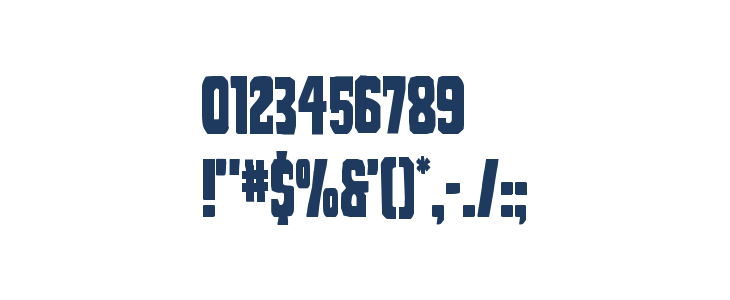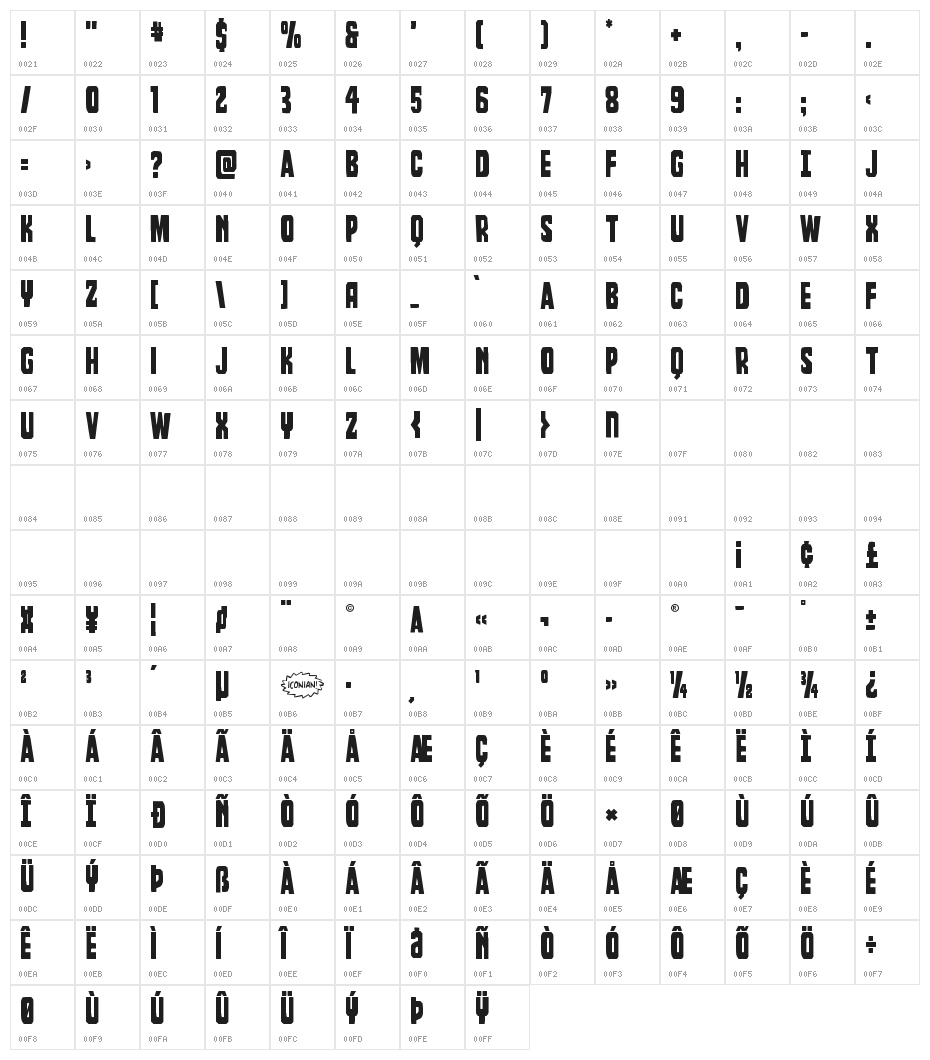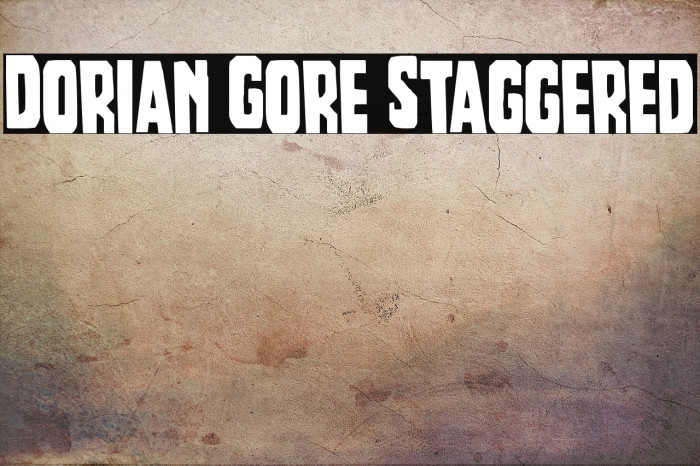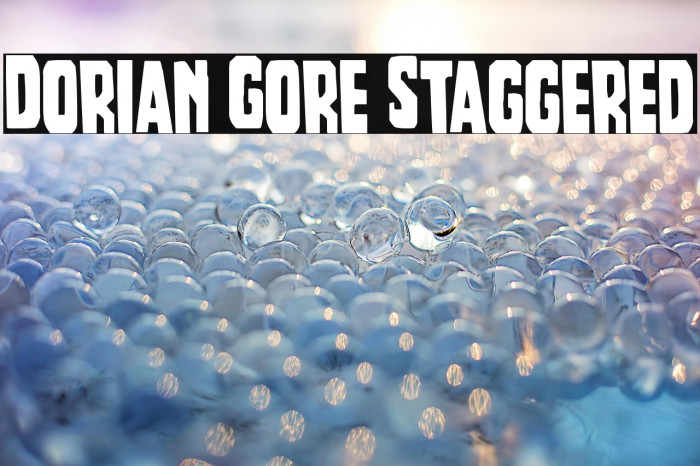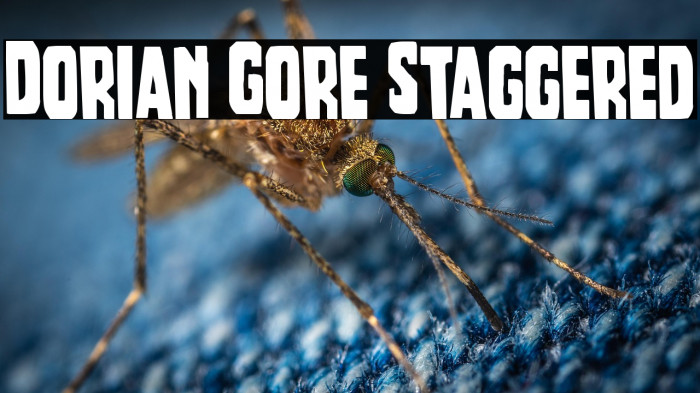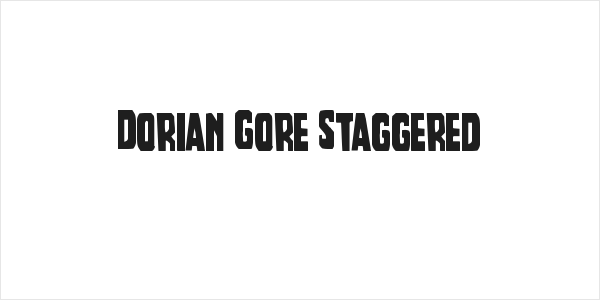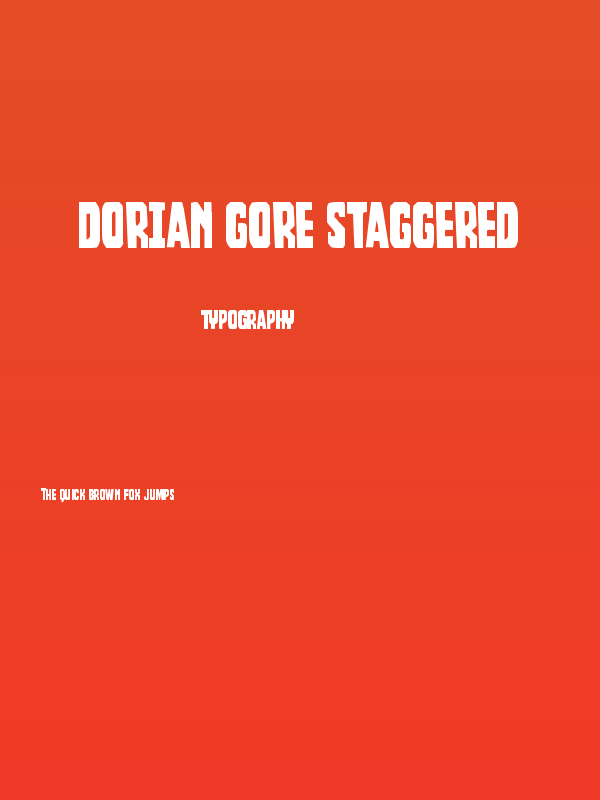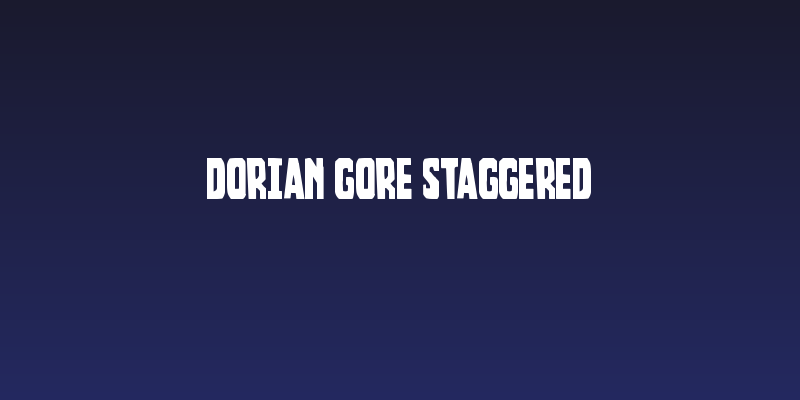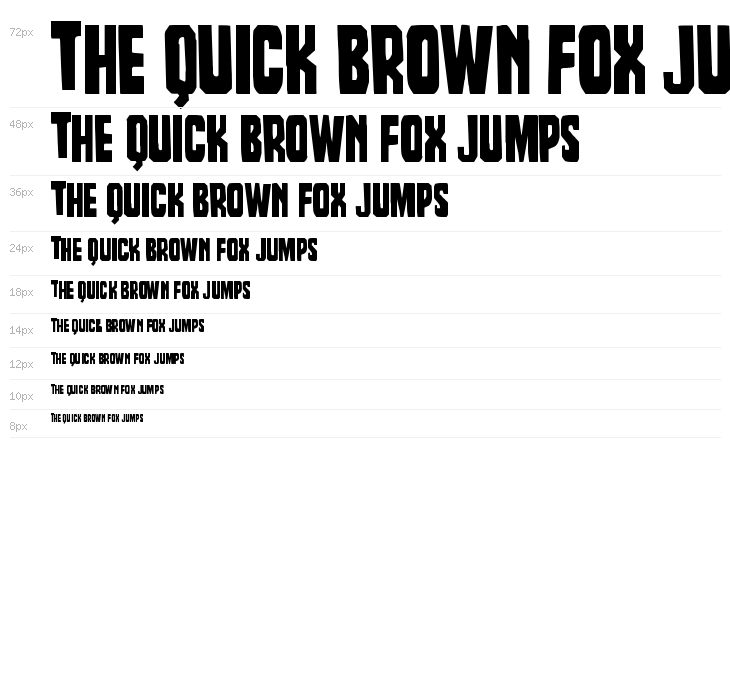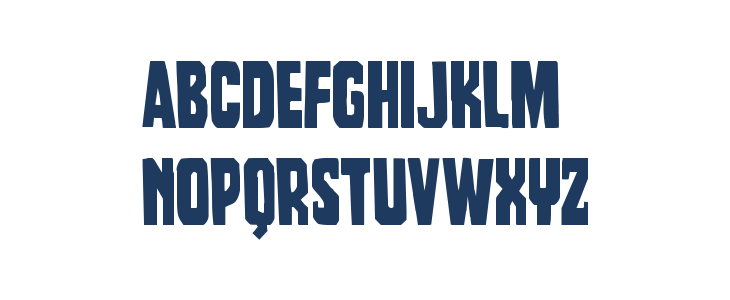
Dorian Gore Staggered Font
Dorian Gore Staggered Description
This font features a bold and striking design with a strong presence. The characters are heavily weighted with a slightly uneven, staggered appearance that adds a unique, edgy feel. The uppercase letters are particularly prominent, with thick strokes and a blocky structure that commands attention. The numbers and special characters maintain this bold style, ensuring consistency throughout. This font is ideal for making a statement, with its dramatic and impactful look.
| Overall Style | Modern, Edgy |
| Use Case | Headlines, Posters, Branding |
| Proposed Projects | Ideal for posters, headlines, branding, and any project requiring a bold statement. |